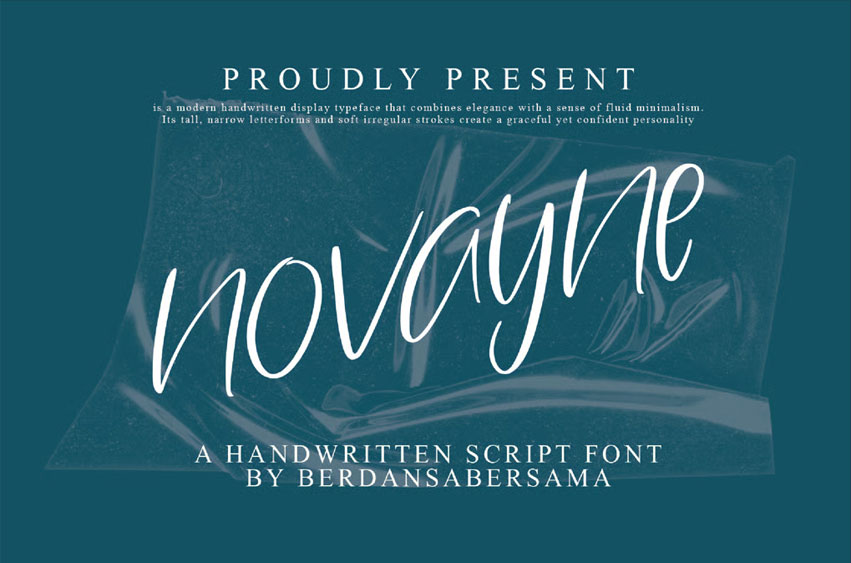
Novayne Font is a modern handwritten script font that effortlessly combines elegance with fluid minimalism.
Its tall, narrow letterforms and soft, irregular strokes create a graceful yet confident personality, perfect for high-end branding, invitations, and design projects that require a delicate and stylish touch.